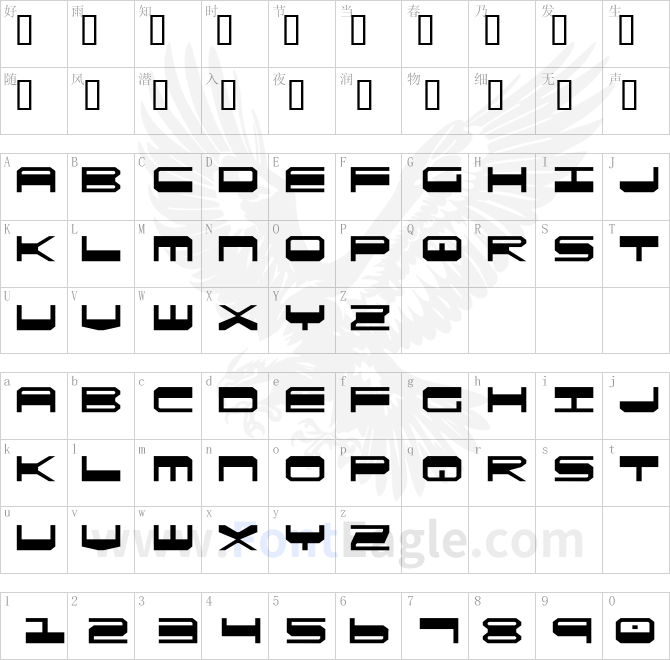
- Font name:QuickGear
- Font Subfamily ID:QuickGear
- Font Full Name:QuickGear
- Postscript:QuickGear
- Font Copyright:1999 Iconian Fonts – Dan Zadorozny